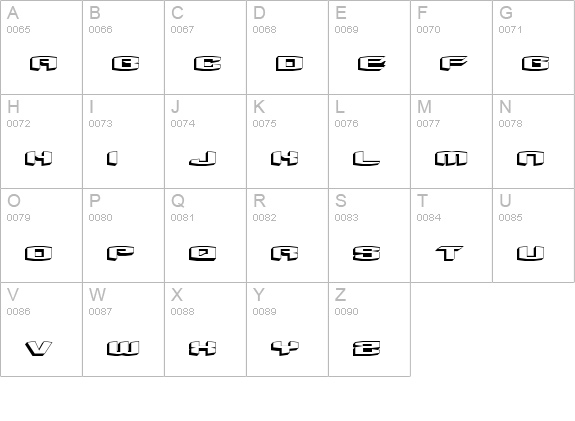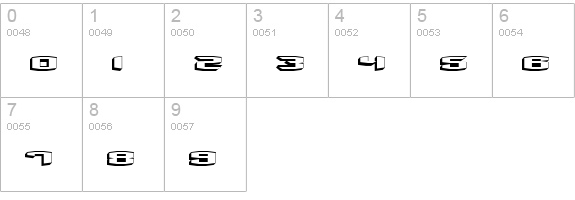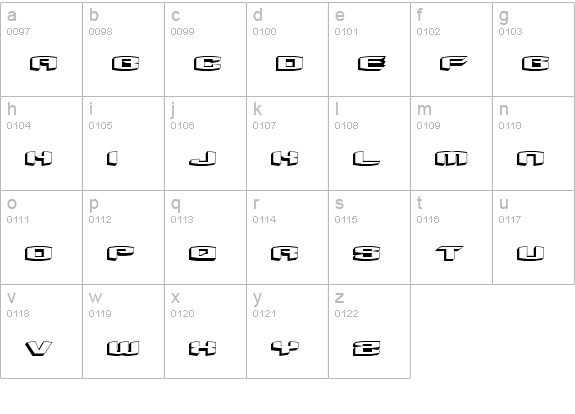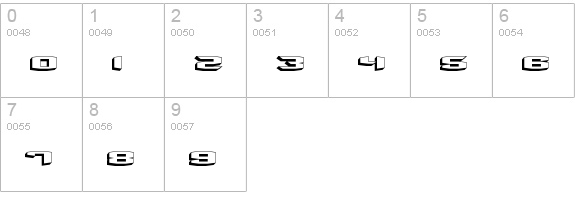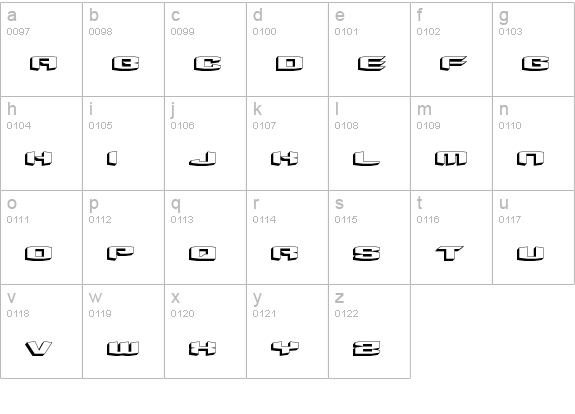
BeyondControl volume2 Font Details
Introducing BeyondControl volume2, a captivating and versatile font that pushes the boundaries of creativity. This unique typeface exudes a sense of modernity and sophistication, making it perfect for a wide range of design projects. Its sleek and stylish aesthetic is sure to make a statement and captivate your audience. BeyondControl volume2 is a must-have for designers looking to add a touch of elegance to their work. Whether you're working on branding, advertising, or any other creative project, this font will elevate your designs to new heights. The best part? BeyondControl volume2 is free to download at FontsMarket.com. Yes, you read that right – this stunning font is available at no cost, allowing you to unleash your creativity without any restrictions. Don't miss out on this amazing opportunity to enhance your designs with BeyondControl volume2. Download it today and take your projects to the next level!